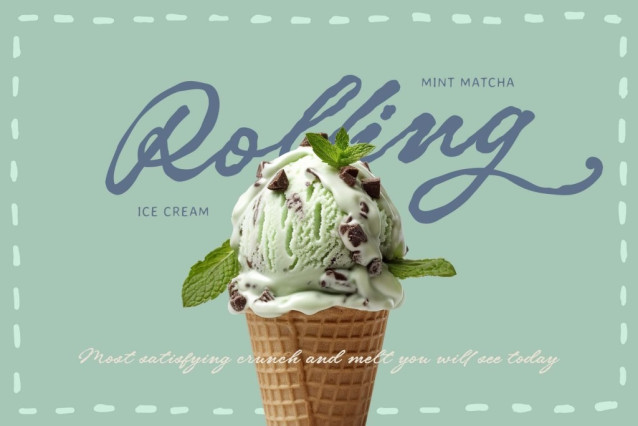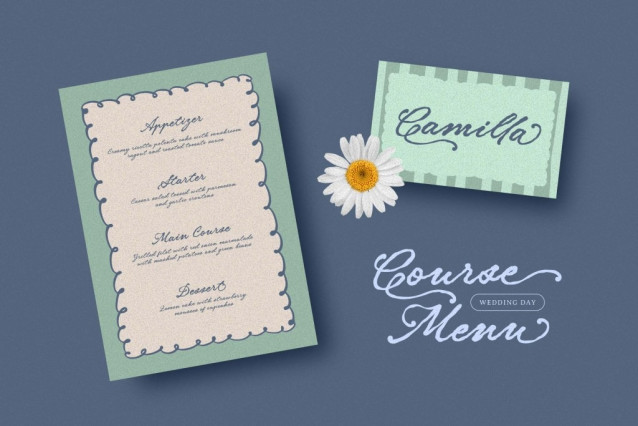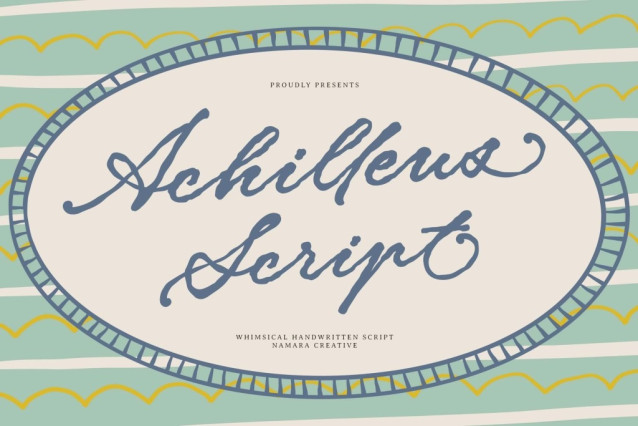
Achilleus Script Font
Achilleus Script Font — a dreamy, whimsical handwritten script font that brings warmth, personality, and effortless elegance to every design it touches. Crafted by Namara Creative, Achilleus Script captures the soul of vintage calligraphy with a contemporary, playful twist, bold ink strokes, expressive swooshes, and lively letterforms that feel genuinely hand-drawn.
Whether you’re designing a romantic wedding suite, a charming café brand, an editorial headline, or a bestselling book cover, Achilleus Script delivers the kind of authentic, human touch that no template can replicate. Its fluid connections and carefully drawn alternates make every word feel custom-lettered — because great type should feel personal.